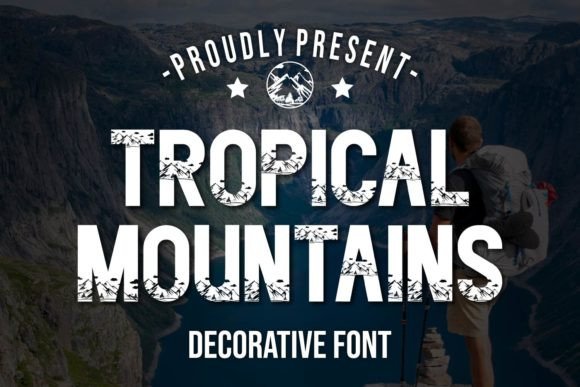
Journey through the Untamed Beauty of Tropical Mountains with Our Enchanting Decorative Font
Embark on a visual expedition through the mystical realm of tropical mountains with our captivating Tropical Mountains Decorative Font. Inspired by the awe-inspiring heights and verdant landscapes, this font embodies the very essence of adventure and exotic allure. Its intricate details and distinctive letterforms are meticulously crafted to capture the untamed spirit of tropical mountain peaks and lush rainforests.
Unleash Your Creativity with Endless Possibilities
The Tropical Mountains Decorative Font is the perfect companion for designers seeking extraordinary ways to bring their creative visions to life. Its versatile design lends itself effortlessly to a wide range of projects, from eye-catching titles and logos to captivating posters and brochures. Let your imagination soar as you explore the boundless possibilities of this font, transforming words into captivating works of art.
Captivate Your Audience with a Sense of Adventure
Transport your audience to the heart of tropical mountain wonders with every design you create using the Tropical Mountains Decorative Font. Its unique letterforms evoke a sense of exploration and discovery, inviting viewers to embark on an extraordinary journey through breathtaking landscapes. Engage their senses and leave a lasting impression with designs that radiate the raw beauty and untamed spirit of the tropics.
Experience Elegance and Sophistication in Every Design
The Tropical Mountains Decorative Font exudes an aura of elegance and sophistication that elevates any project it graces. Its intricate details and carefully crafted letterforms add a touch of refinement to your designs, ensuring they stand out with timeless beauty and distinction. Let your creations shine with an air of luxury and sophistication, leaving a lasting impression on your audience.